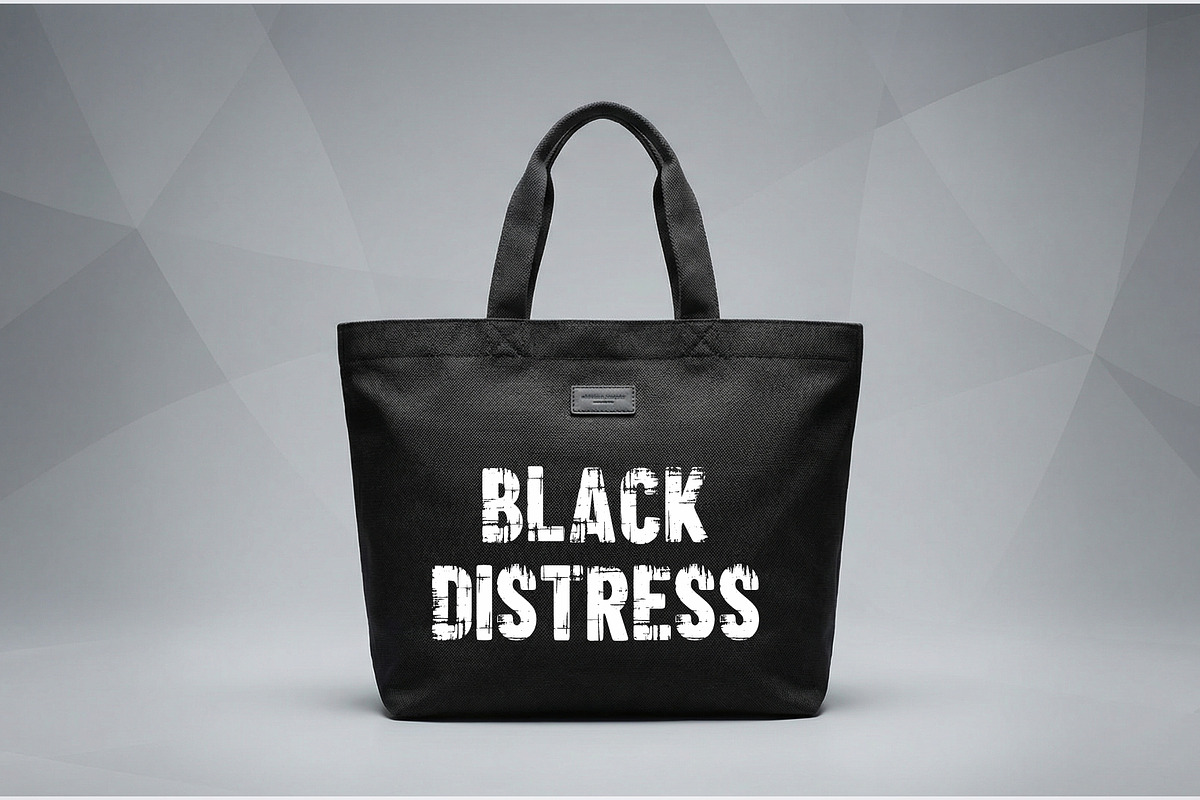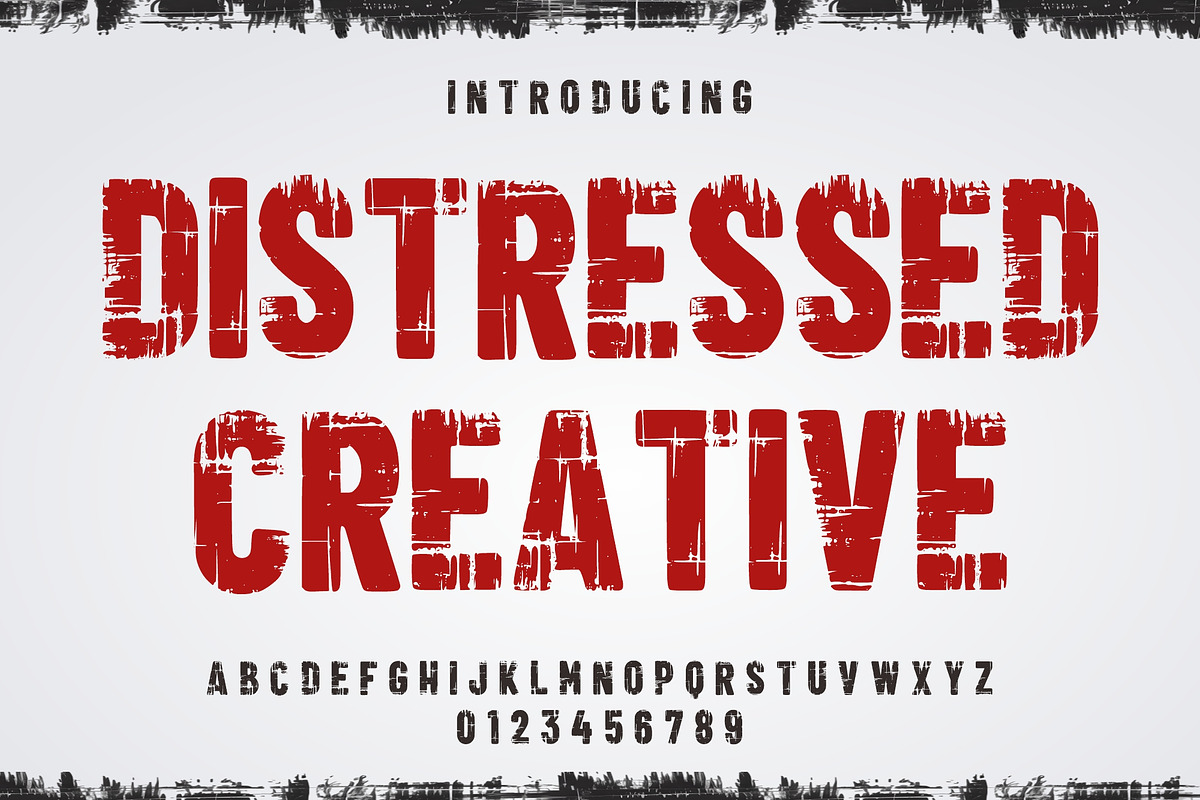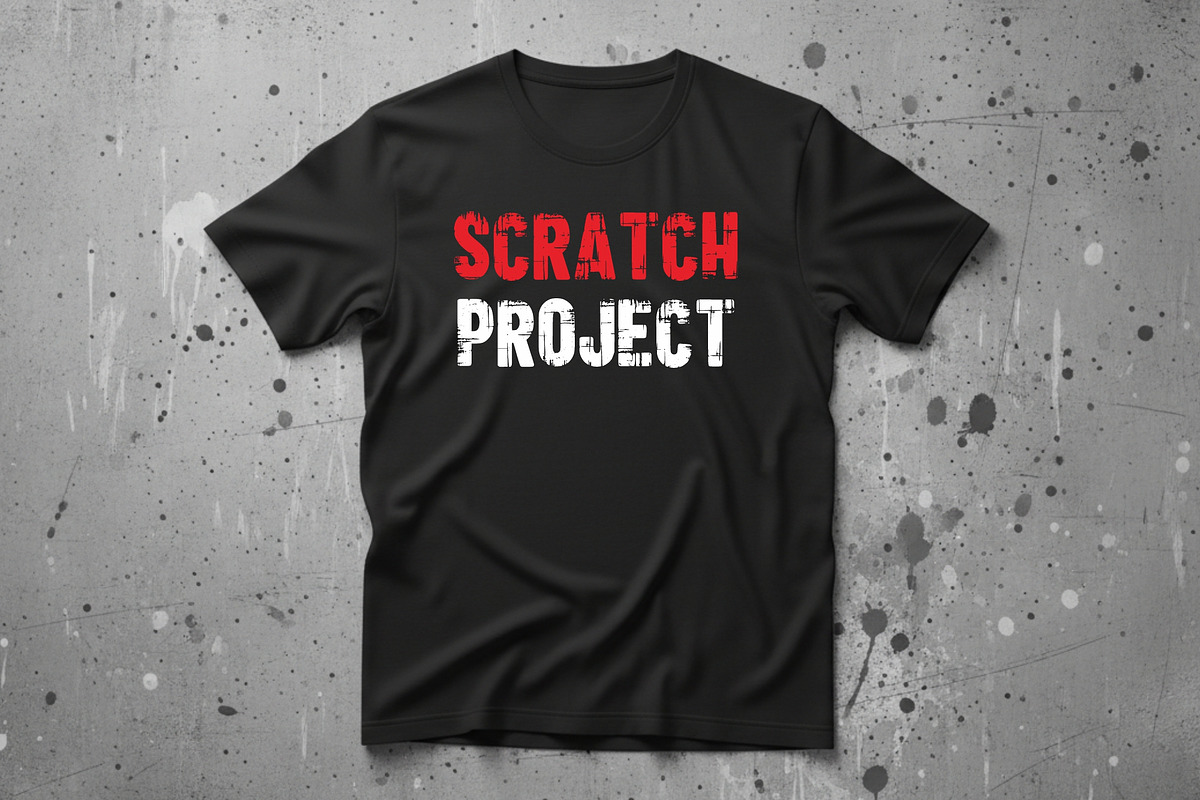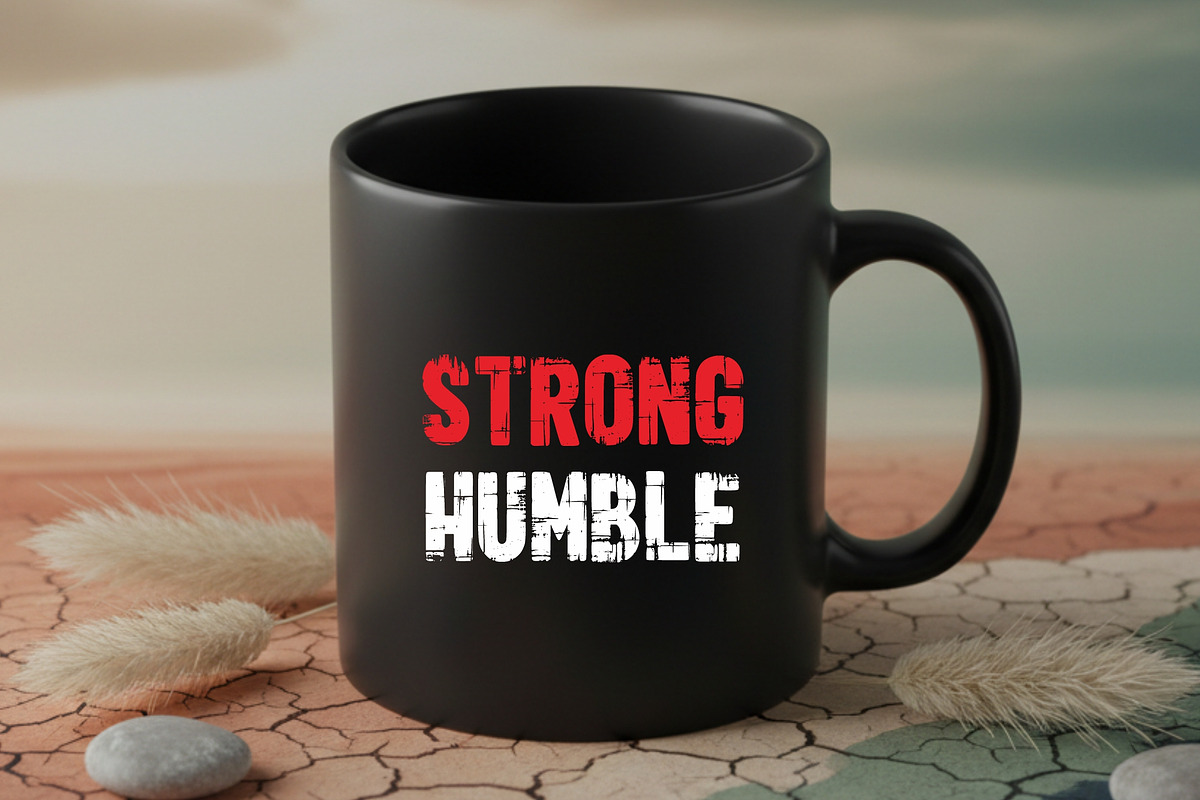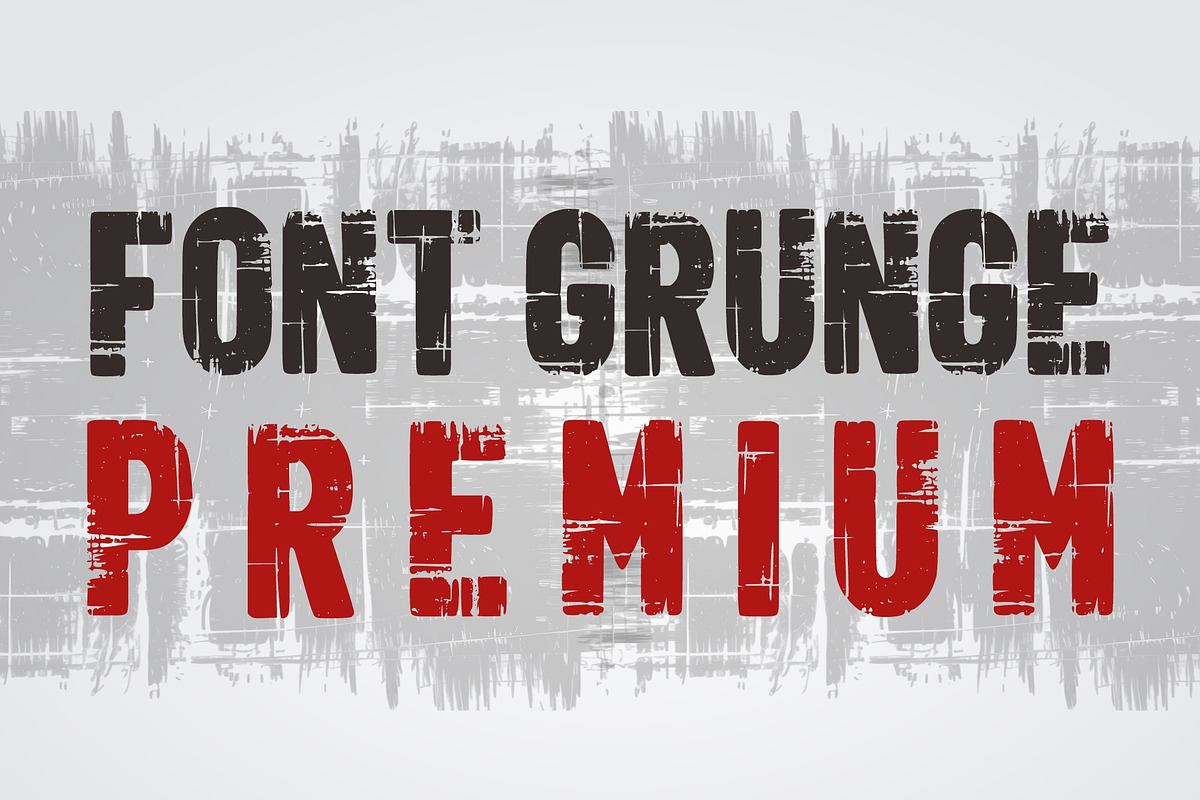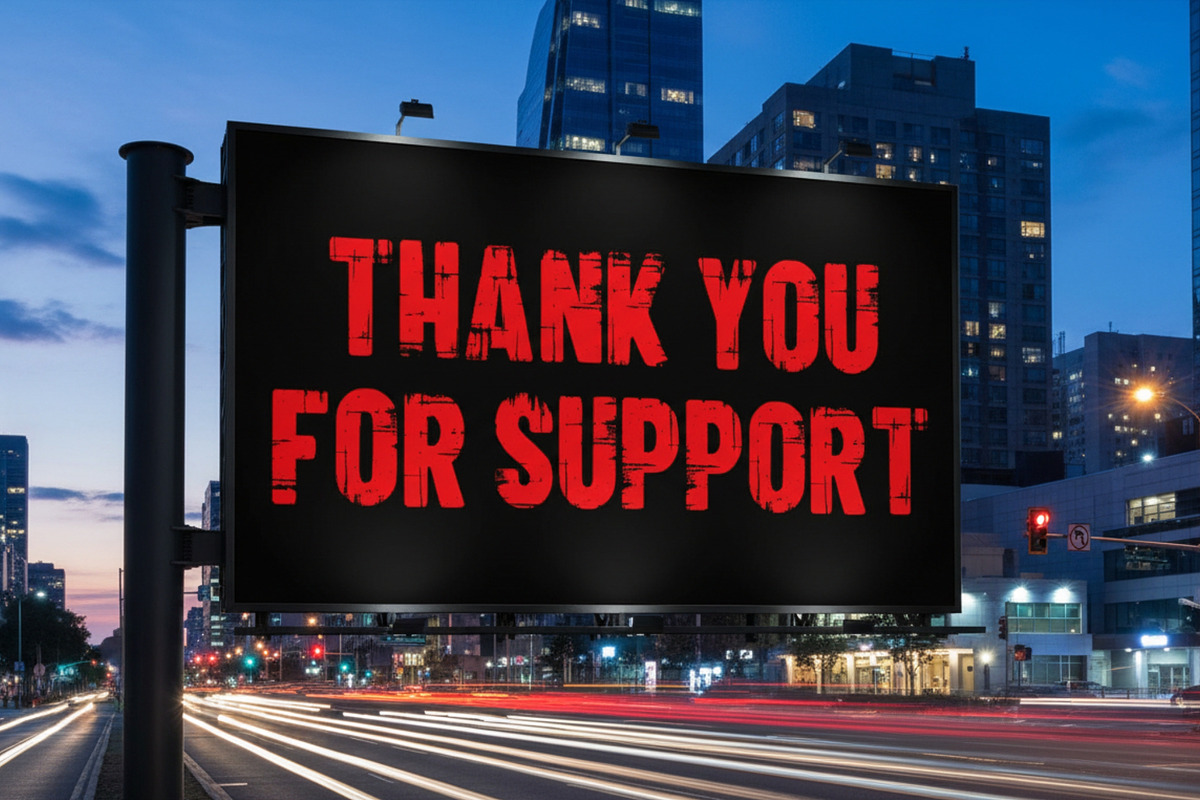
Distressed Creative
Distressed Creative is a bold and rugged stencil-style display font featuring a heavily textured, grunge effect. Designed with a worn, industrial aesthetic, this font is perfect for posters, branding, streetwear designs, military themes, headlines, packaging, and vintage-inspired projects.
Its strong uppercase characters and distressed details create a powerful visual impact, making it ideal for attention-grabbing typography.